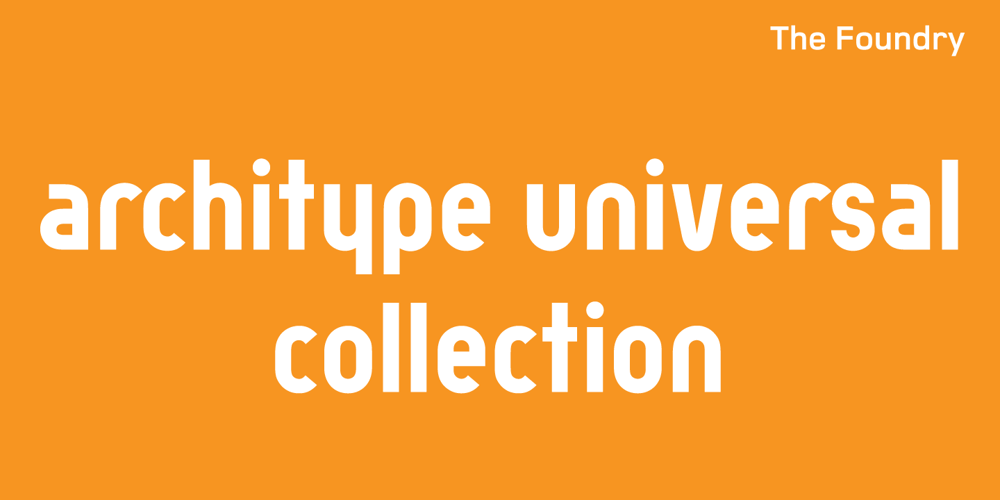
Architype Bayer Type Font Family was designed by Herbert Bayer, Freda Sack, David Quay and published by The Foundry. Architype Bayer Type contains 1 styles and family package options. Architype Universal is a collection of avant-garde typefaces deriving mainly from the work of artists/designers of the inter-war years, whose ideals underpin the design philosophies of the modernist movement in Europe. Their ‘universal’, ‘single alphabet’ theory limits the character sets. Architype Bayer-type is based upon Herbert Bayer’s 1931 universal, modern serifed alphabet. Although the ‘modern’ style appears to be a radical departure from his first sans single alphabet of 1925, the structure of this later serifed style is still grid based and geometrically constructed.